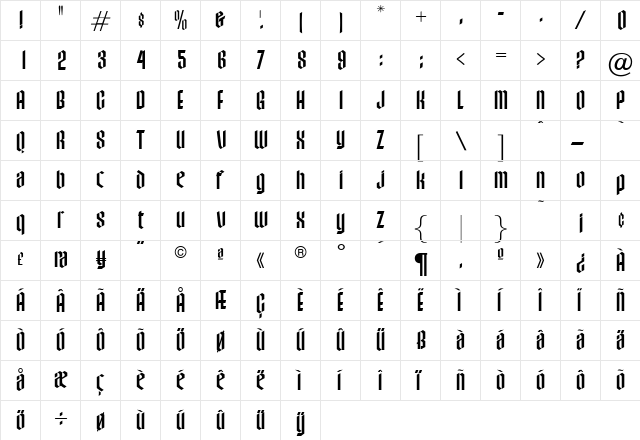
OPTIWycombeFive Regular
OPTIWycombeFive takes a measured approach to typography — its balanced proportions and neutral character make it a reliable workhorse for both digital and print work.